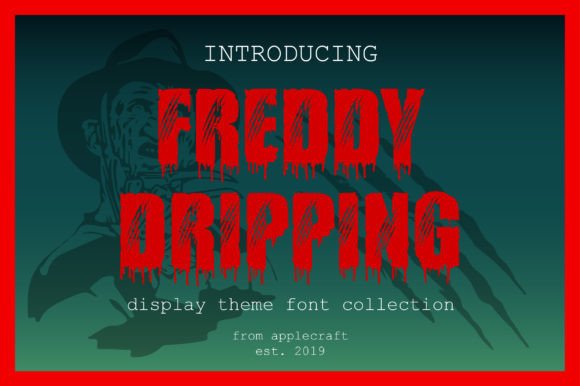
Freddy Dripping Font: A Supernatural Fusion of Art and Horror
Step into a realm of darkness and intrigue with Freddy Dripping Font, a display font family that bleeds with creativity and captivates with its eerie charm. Inspired by the haunting world of Halloween, this font is not just a collection of letters; it's a portal to a realm where imagination and horror intertwine.
Freddy Dripping Font is not your average font; it's a work of art that tells a story of chills and thrills. With its blood-like melt seeping through each letter, this font oozes an ominous aura that's sure to send shivers down your spine. Whether you're a graphic designer, a filmmaker, or a writer delving into the realm of horror, Freddy Dripping Font is your perfect companion.
Unleash your creativity and let your projects drip with terror with Freddy Dripping Font. Design movie titles that exude an air of mystery, create logos that scream horror, or craft book covers that hint at dark secrets waiting to be uncovered. The possibilities are endless, and the only limit is your imagination.
With its sinister charm and versatility, Freddy Dripping Font is the perfect choice for a wide range of projects. Use it to craft Halloween invitations that send shivers down the spines of your guests, or transform your social media posts into haunting masterpieces. The fearsome allure of this font will leave a lasting impression on all who encounter it.
Embrace the darkness and let your projects take on a life of their own with Freddy Dripping Font. Its unique style and haunting aesthetics will elevate your creations to new heights of horror, leaving your audience captivated and enthralled. Dare to embrace the darkness and let your imagination run wild with Freddy Dripping Font.